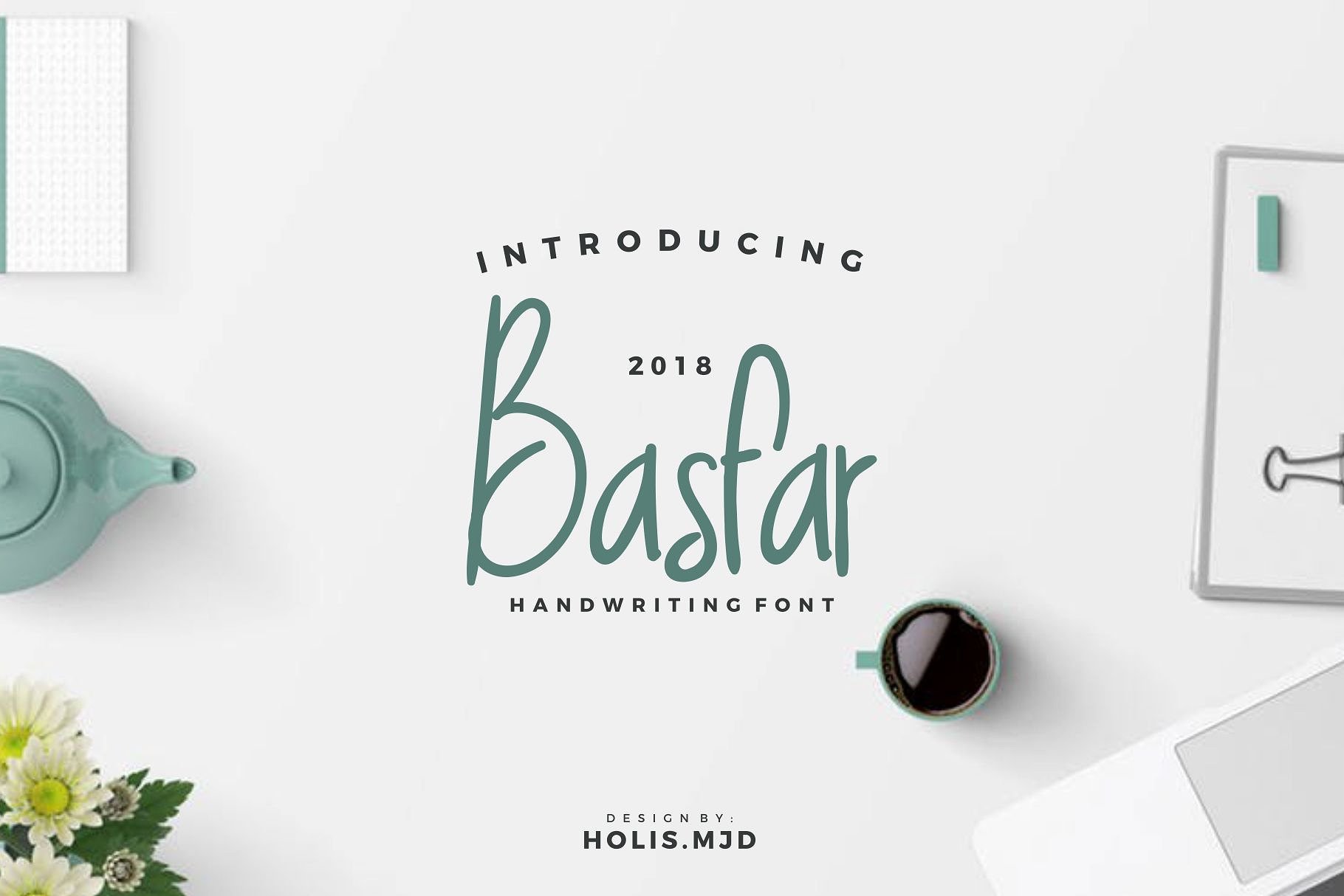
Basfar Handwriting
Basfar Handwriting Font
Basfar fonts are handwritten with simple and gentle friendly impression, whether used for writing quote, invitation cards, postcards, label products, logos or anything that takes a handwriting touch.